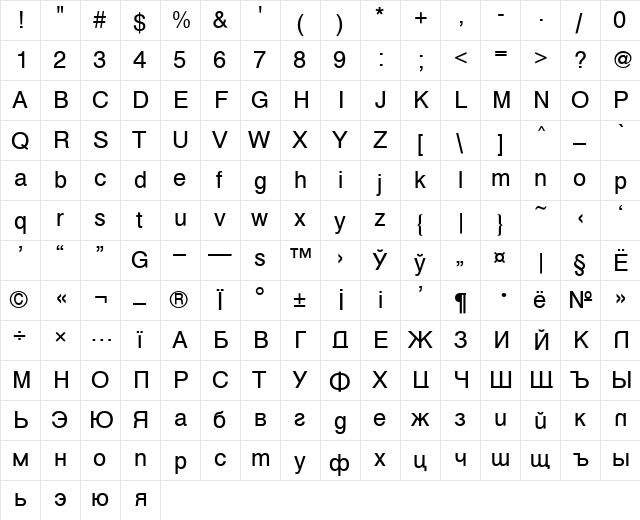
Vanta Medium Regular
Design Context for Vanta Medium Typeface
Vanta Medium takes a measured approach to typography — its balanced proportions and neutral character make it a reliable workhorse for both digital and print work.
Pro Tip: Use Vanta Medium in both headline and body roles to test its range before committing to a single application.